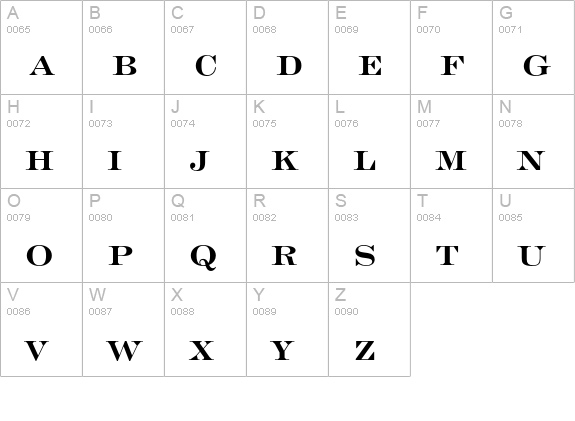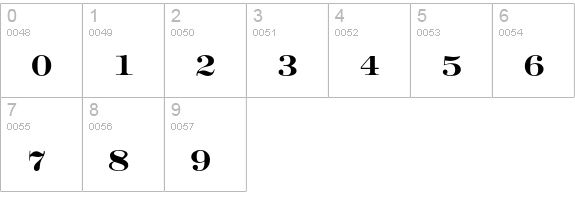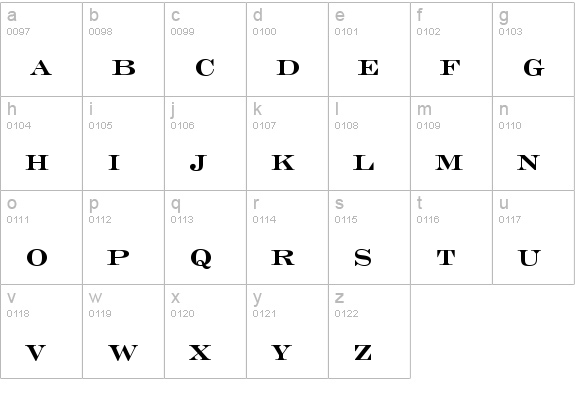
Engravers' Roman Bold Font Details
Engravers' Roman Bold is a strong, high-contrast variant in the Engravers' typeface family \xE2\x80\x94 well suited to headlines, attention-grabbing titles, and strong calls-to-action.
Engravers' Roman Bold is a timeless and elegant font that exudes sophistication and professionalism. Its bold and distinct letterforms make it perfect for adding emphasis and impact to any design project. The font's classic style is reminiscent of traditional engravings, giving it a sense of heritage and craftsmanship. What makes Engravers' Roman Bold even more appealing is that it is available for free download at FontsMarket.com. This means that you can easily access this high-quality font without any cost, making it a valuable addition to your font library. Whether you're working on a print design, branding project, or any other creative endeavor, Engravers' Roman Bold is sure to make a statement and elevate your work to the next level. Download it today and see the difference it can make in your designs!